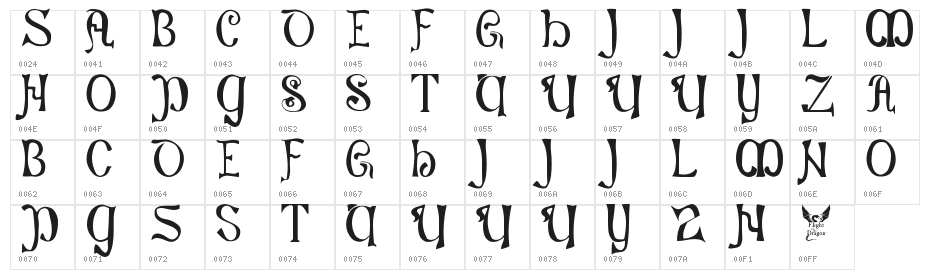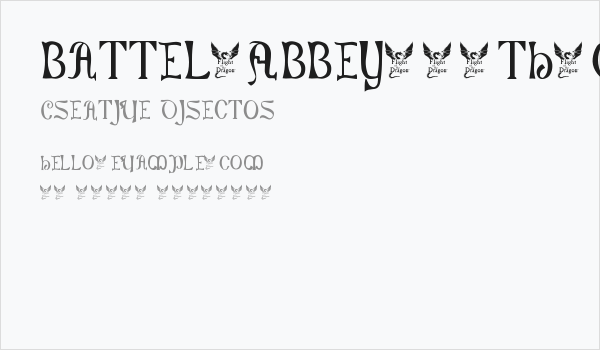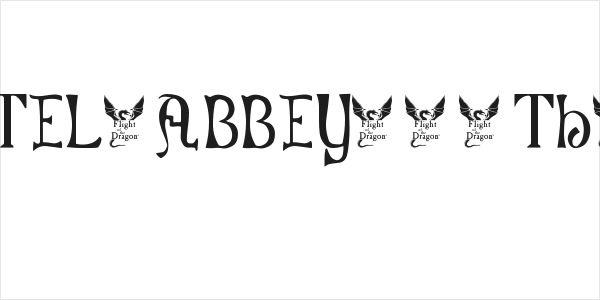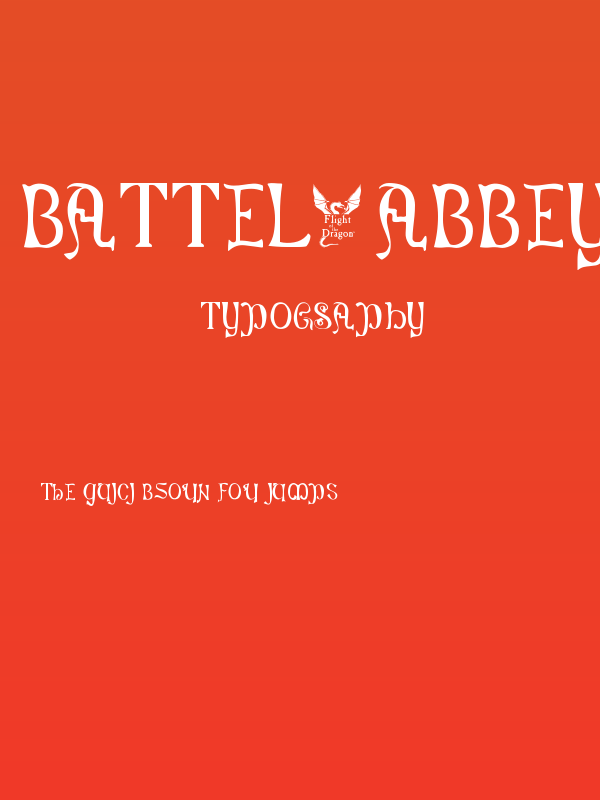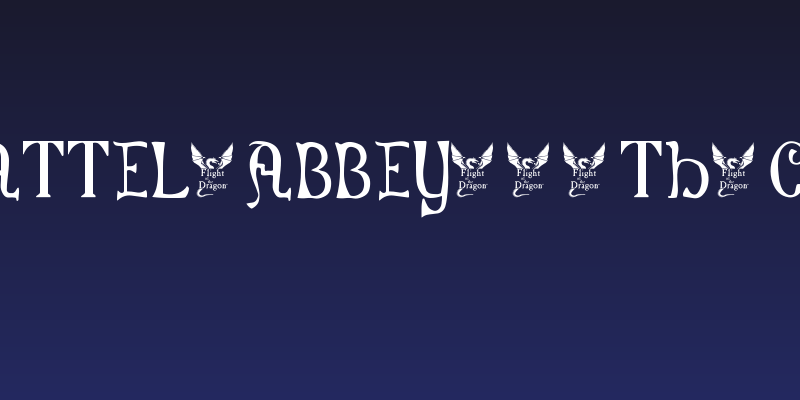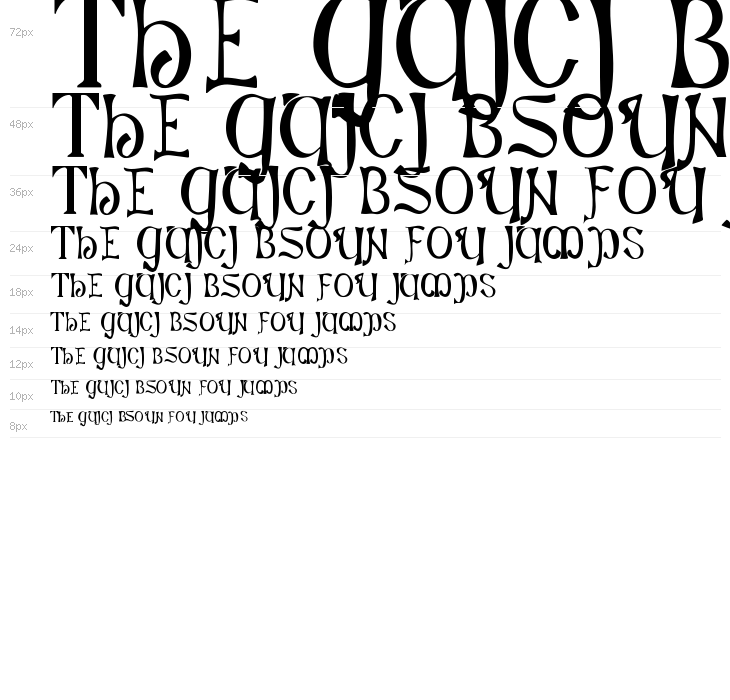
Battel-Abbey--8th-c- Font
Battel-Abbey--8th-c- Description
This font features a unique blend of medieval and gothic styles, characterized by its bold and dramatic strokes. The uppercase letters exhibit a strong presence with their thick, angular lines and distinctive serifs, while the lowercase letters maintain a consistent style with slightly more curvature. The numerals are equally bold, matching the overall aesthetic of the alphabet. Special characters are designed with intricate details, adding to the font's decorative appeal. This font's high contrast between thick and thin strokes enhances its readability while maintaining an artistic flair.
| Overall Style | Gothic, Medieval |
| Proposed Projects | Ideal for historical or fantasy-themed projects, such as book covers, posters, or video game titles. |